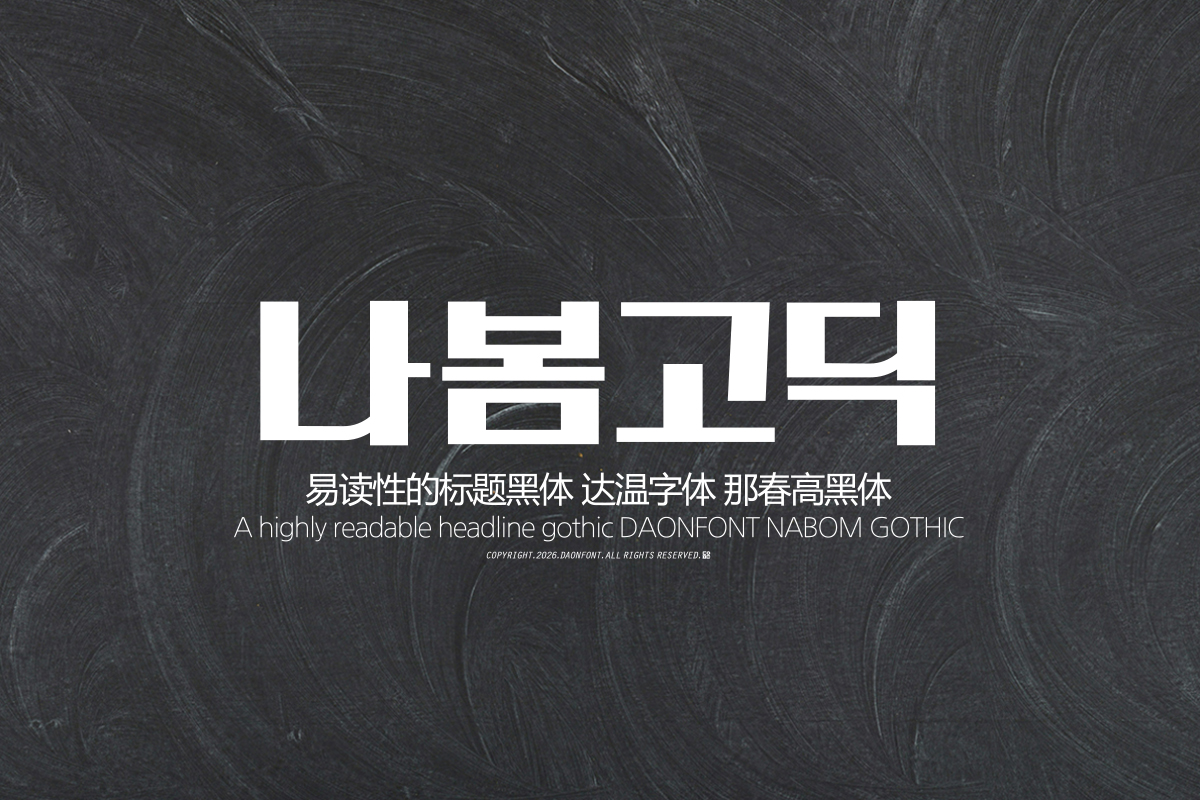
DAON NABOMGOTHIC(B)
'NABOMGOTHIC' is a Gothic typeface designed for headlines that demonstrates excellent legibility in title and heading designs. It is characterized by a distinct contrast in thickness between horizontal and vertical strokes, while maintaining stable readability. The combination of a solid structure and sharp stroke contrast creates a strong visual presence, conveying a clear and powerful atmosphere when used for headings or headings.